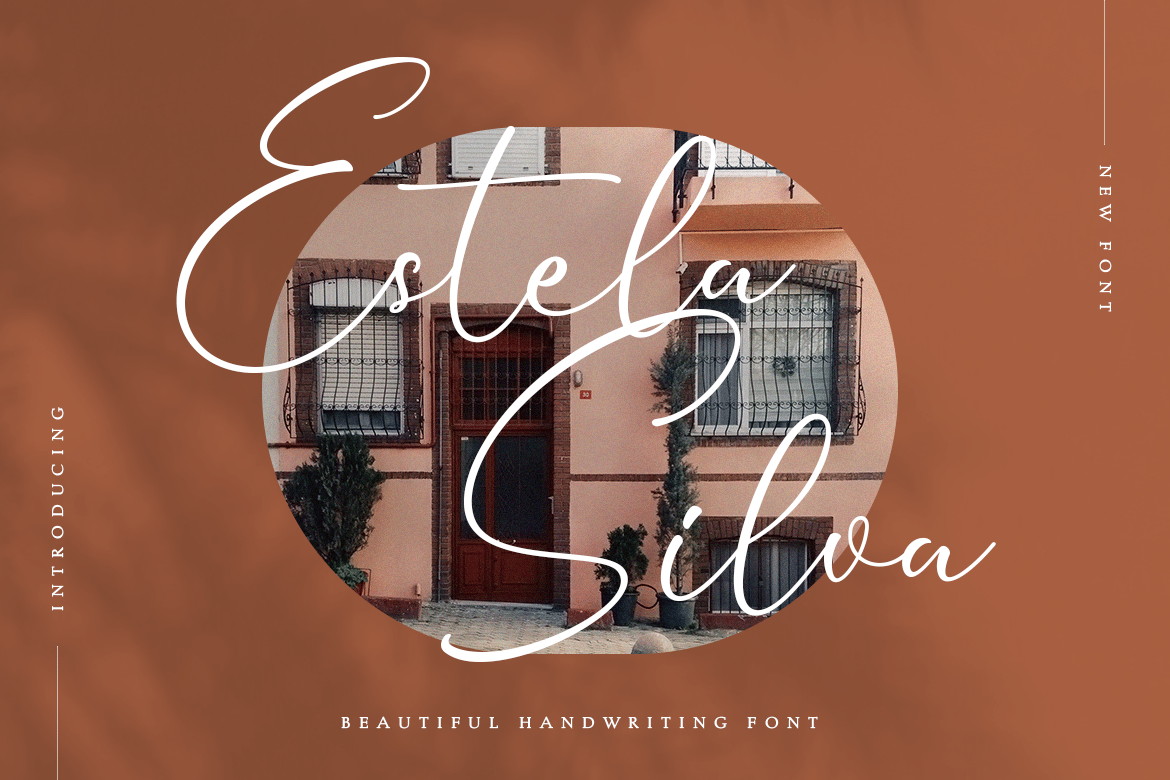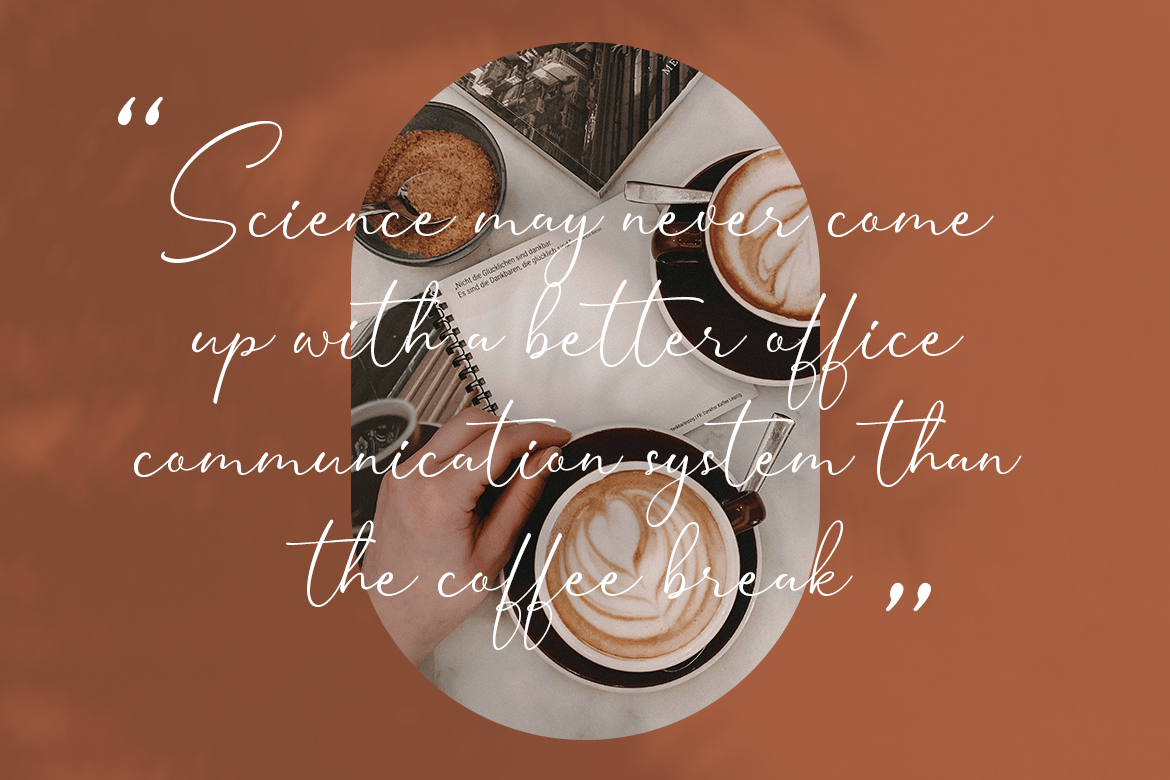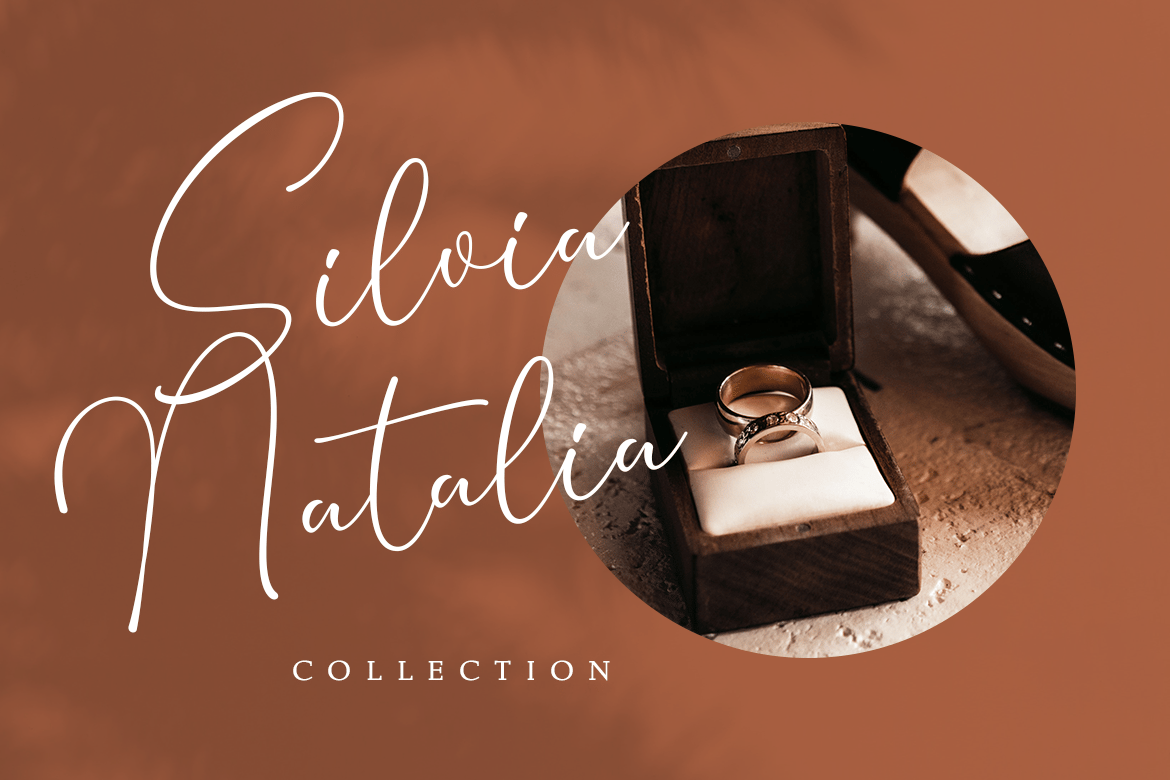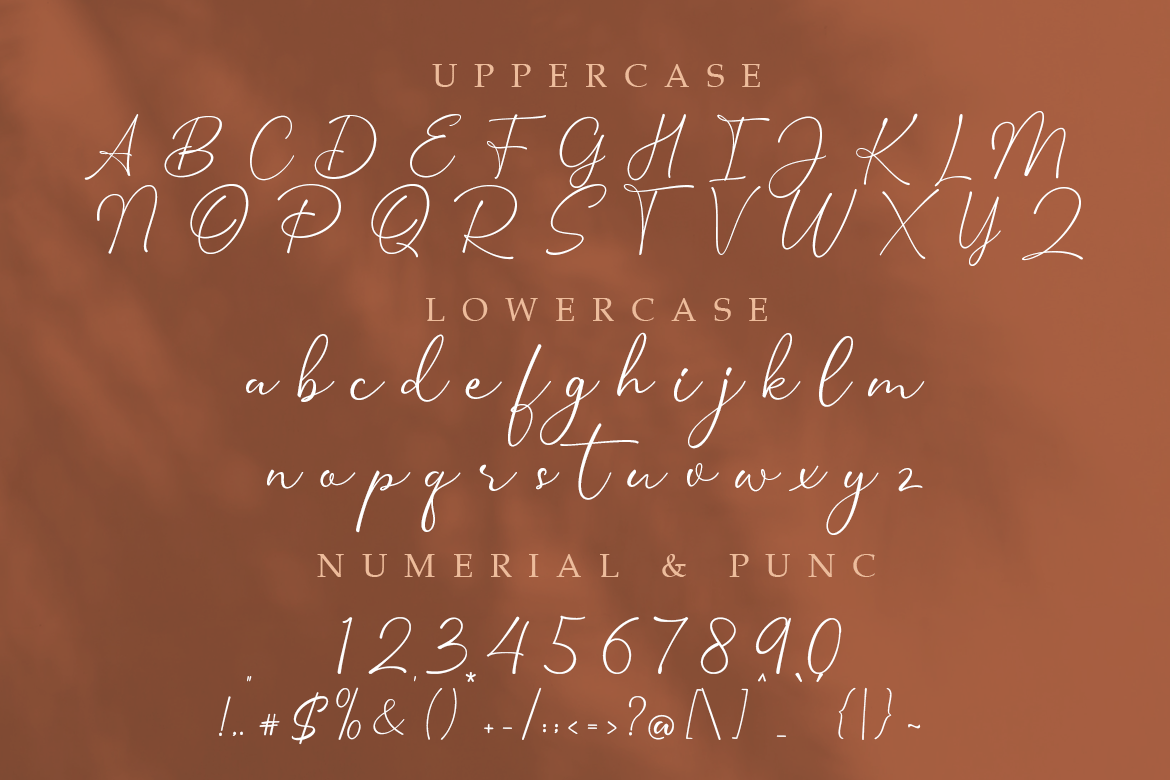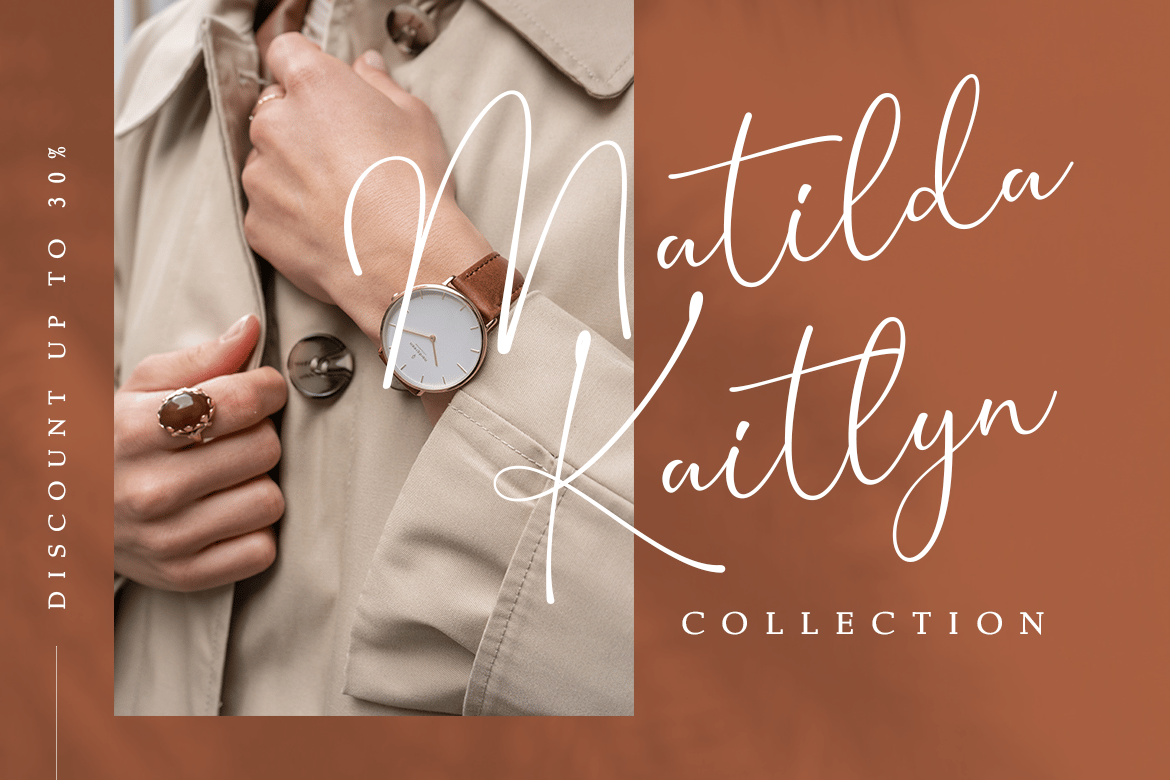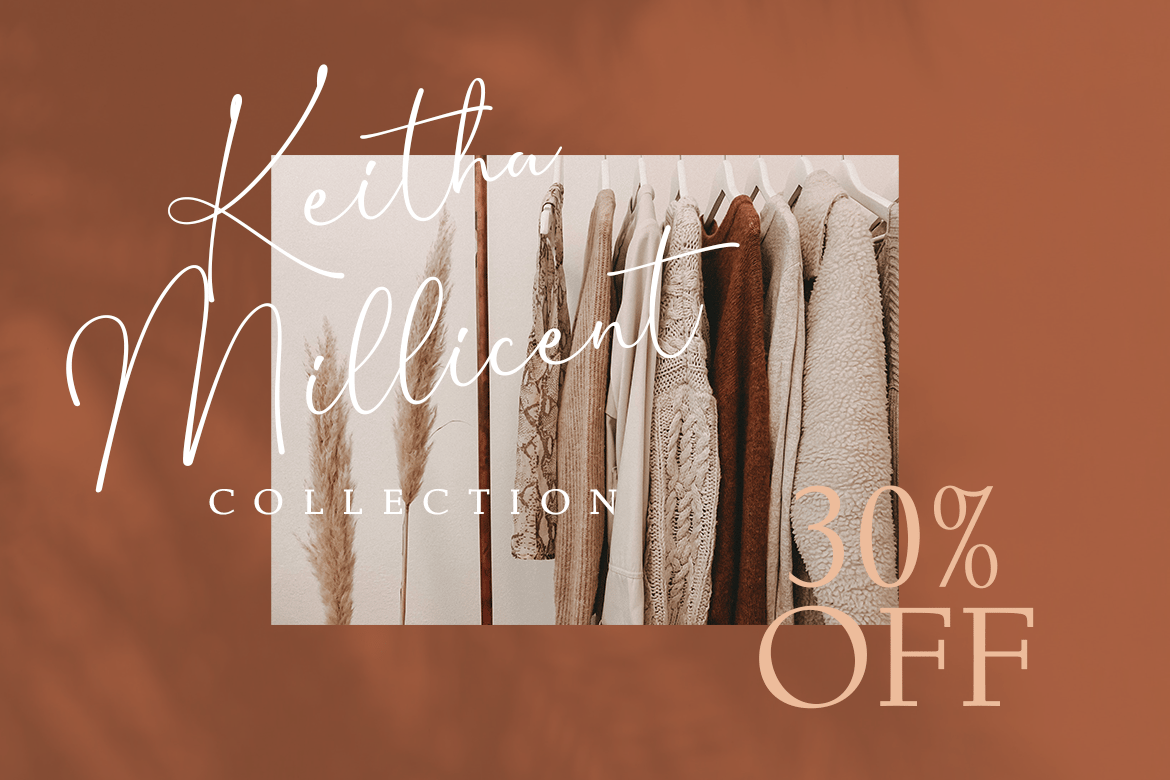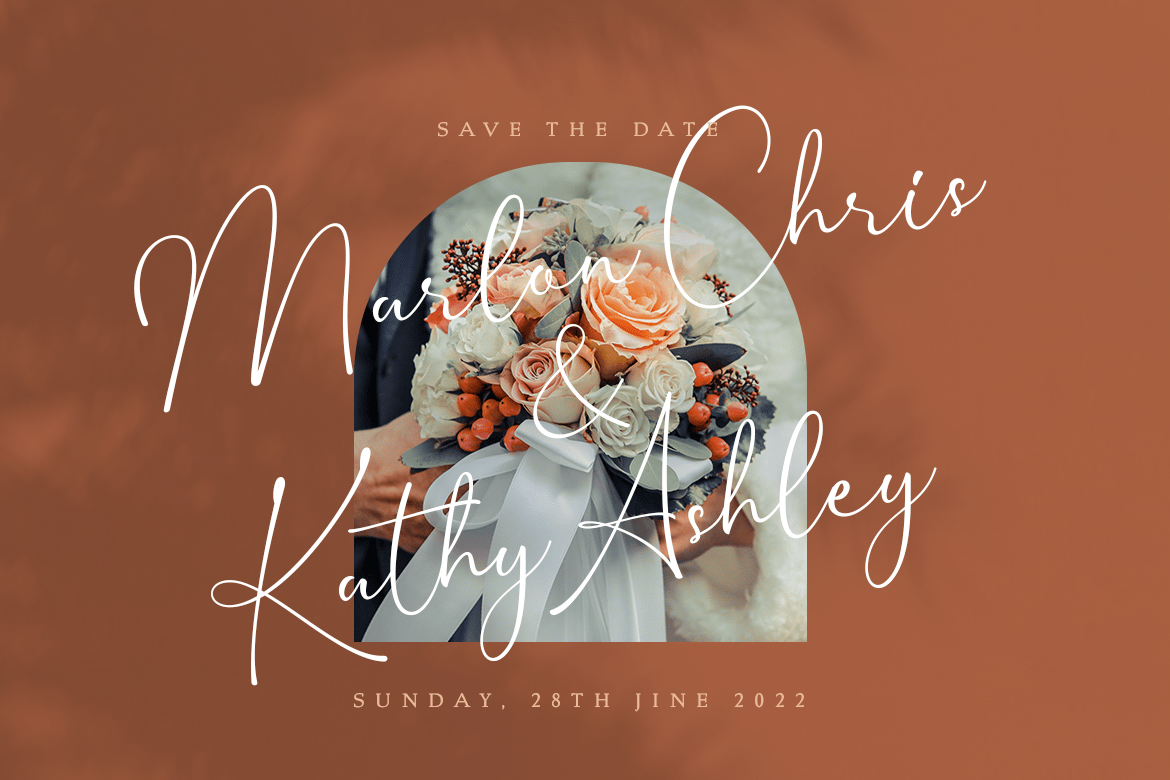
Estela Silva – Handwriting Font
Estela Silva is a modern line natural handwritten font. This font is perfect for logos, invitations, stationery, wedding designs, label, photography, watermark, special events, or anything that needs a romantic, handwritten touch.
- uppercase & lowercase
- numbers and punctuation
- multilingual support